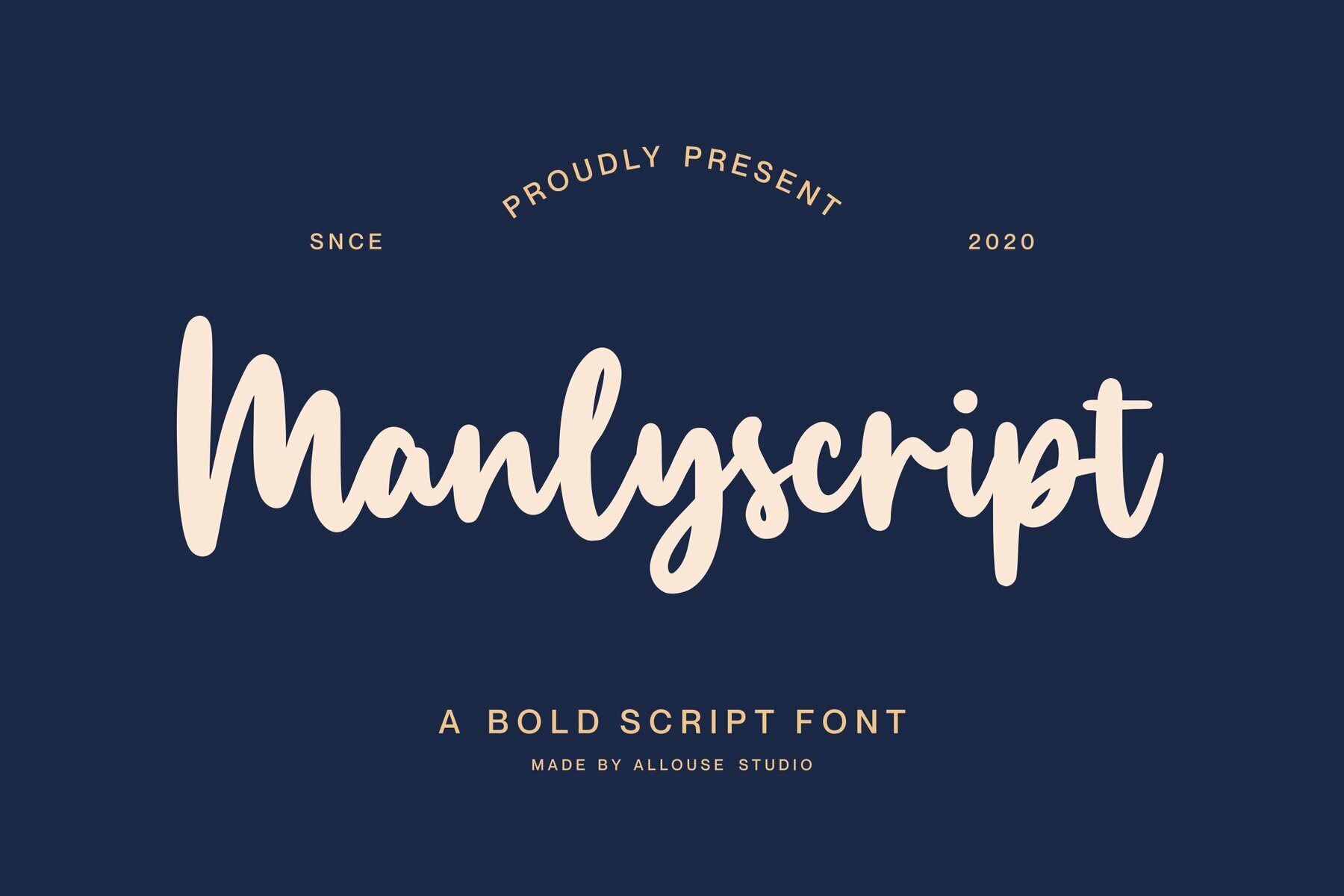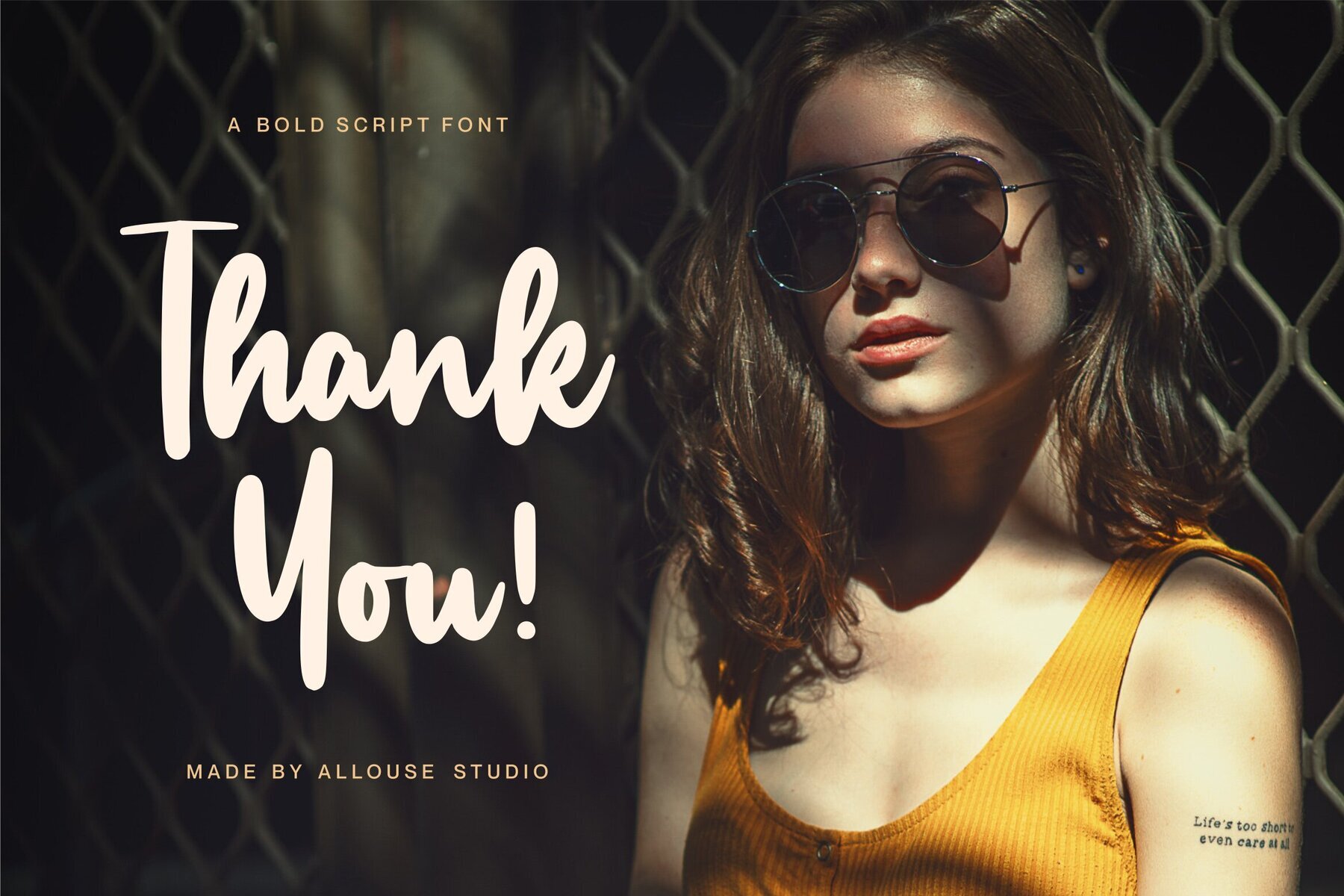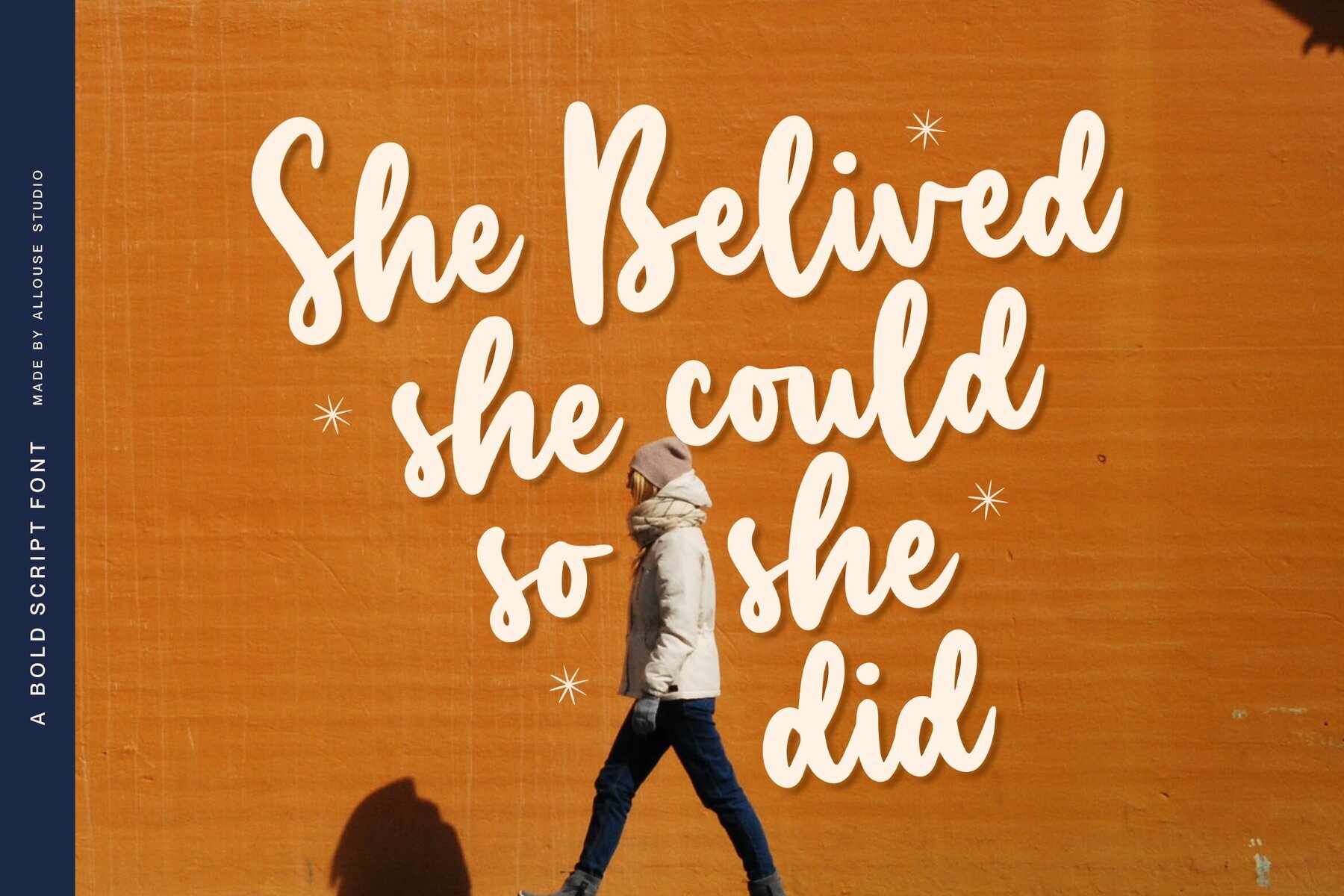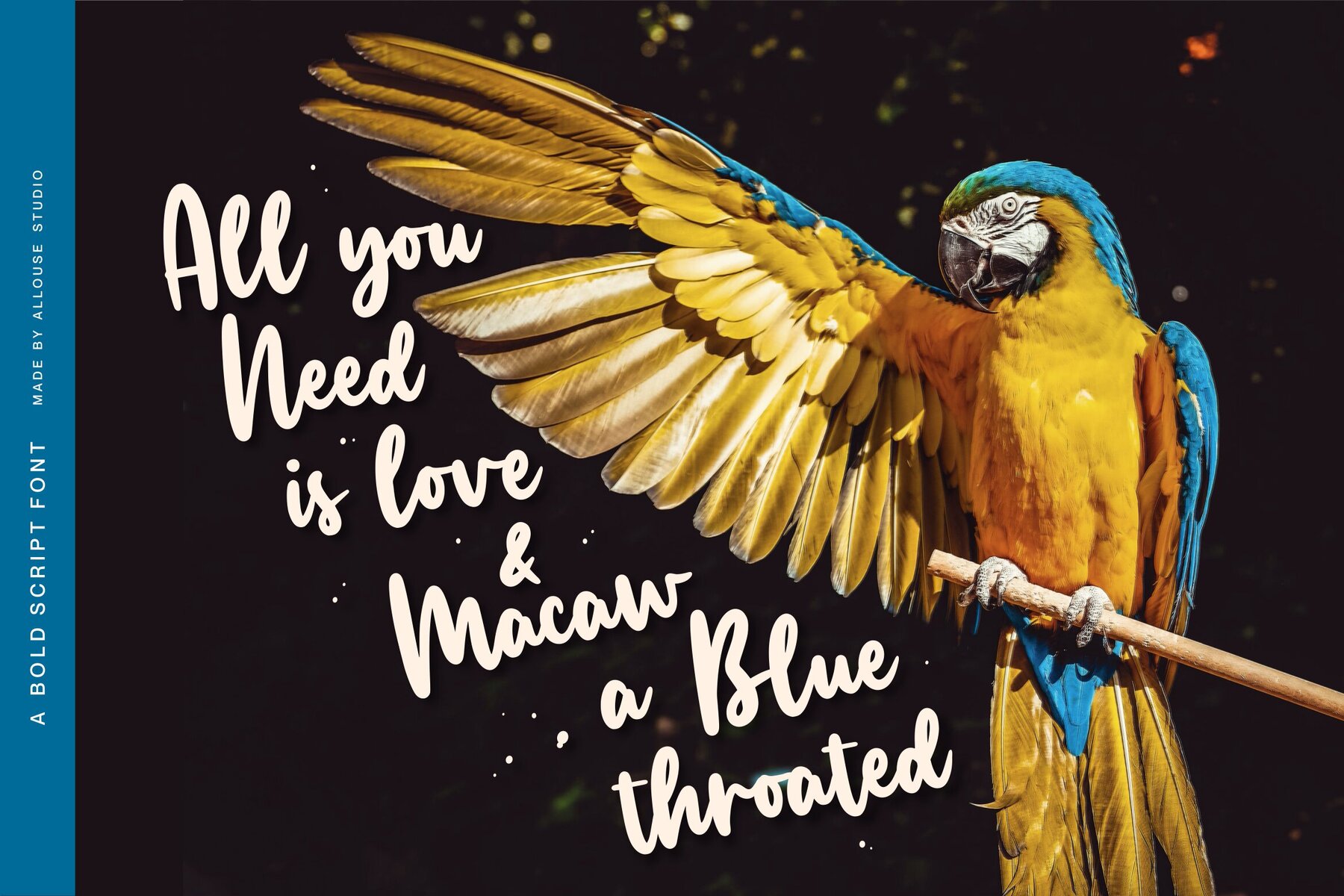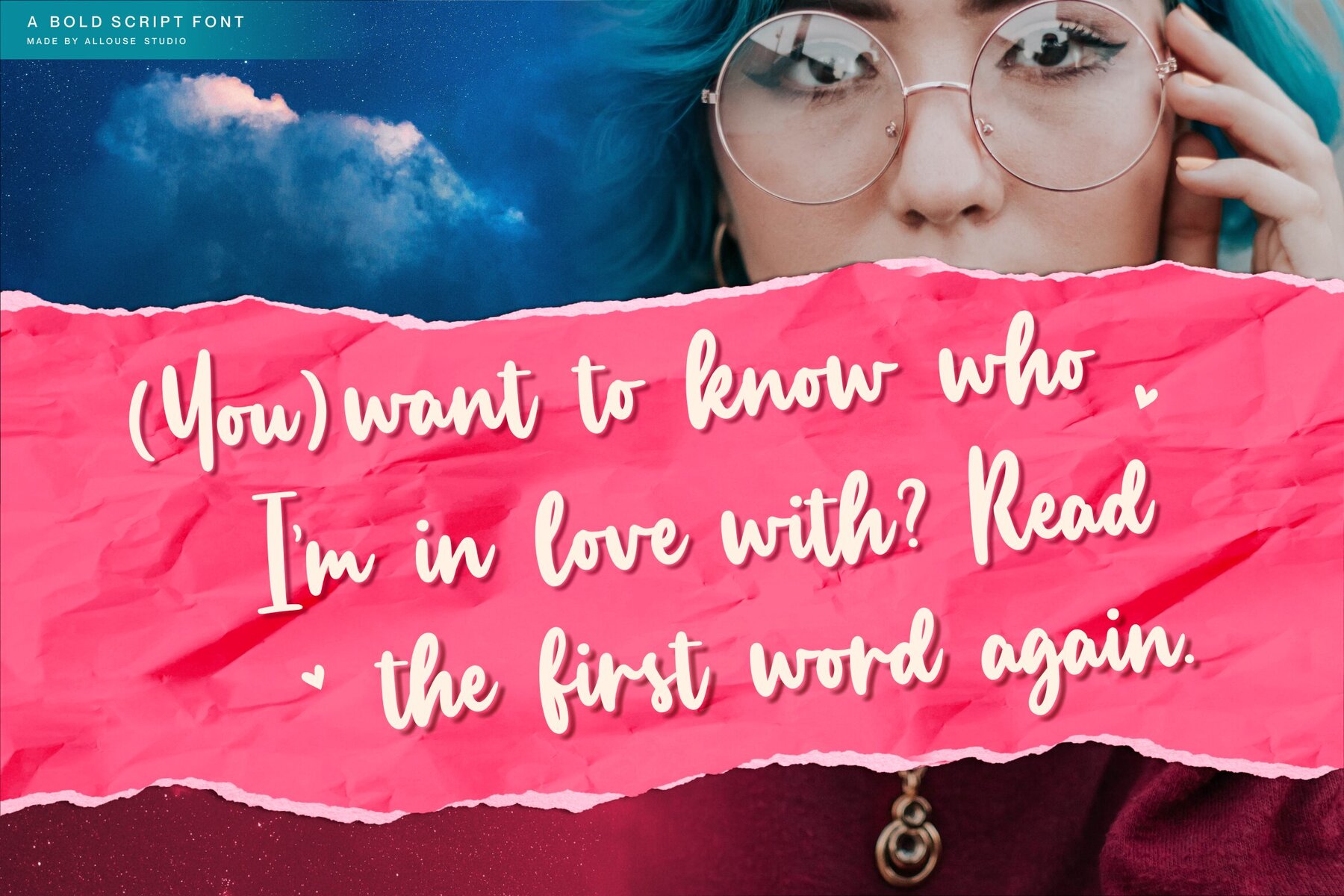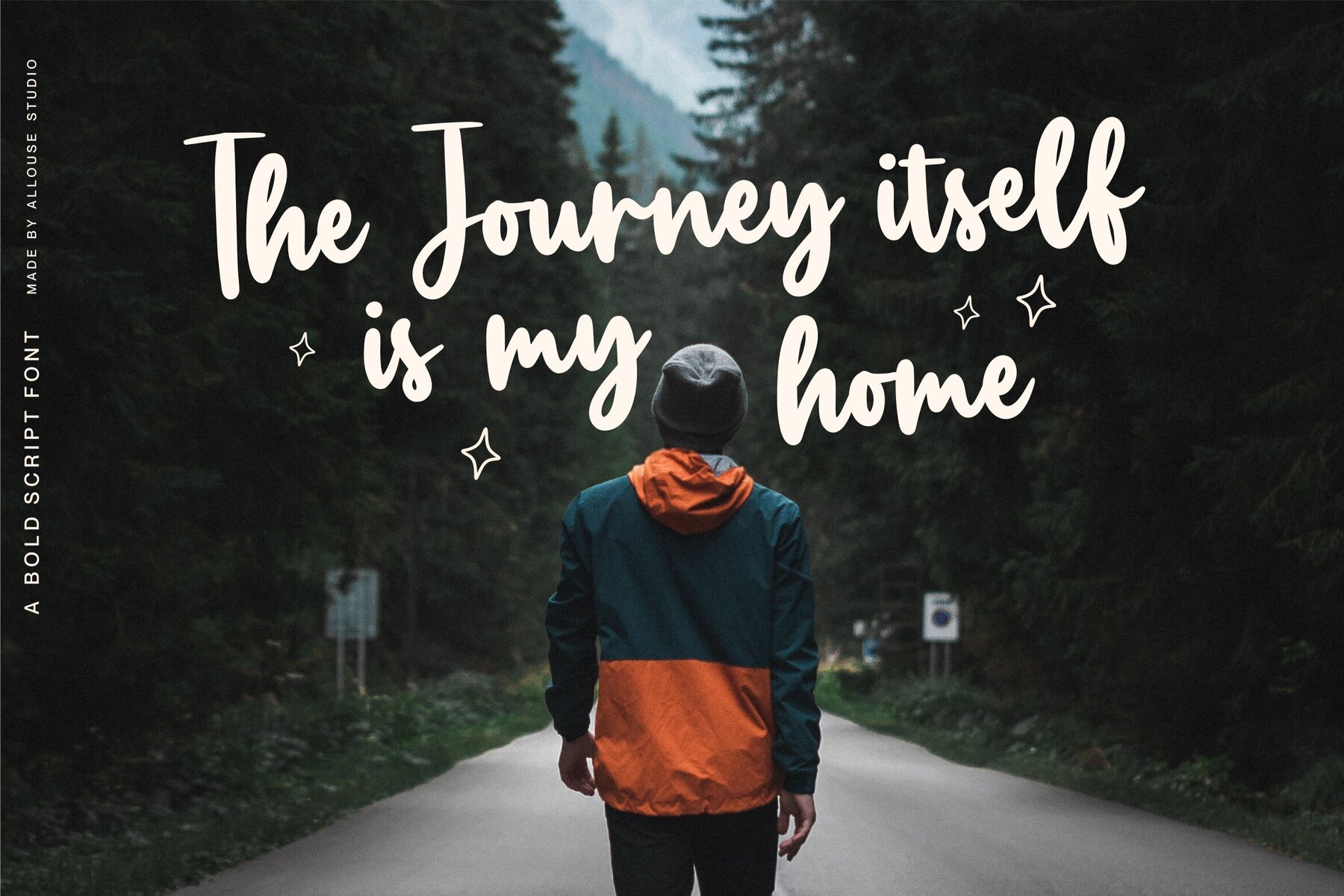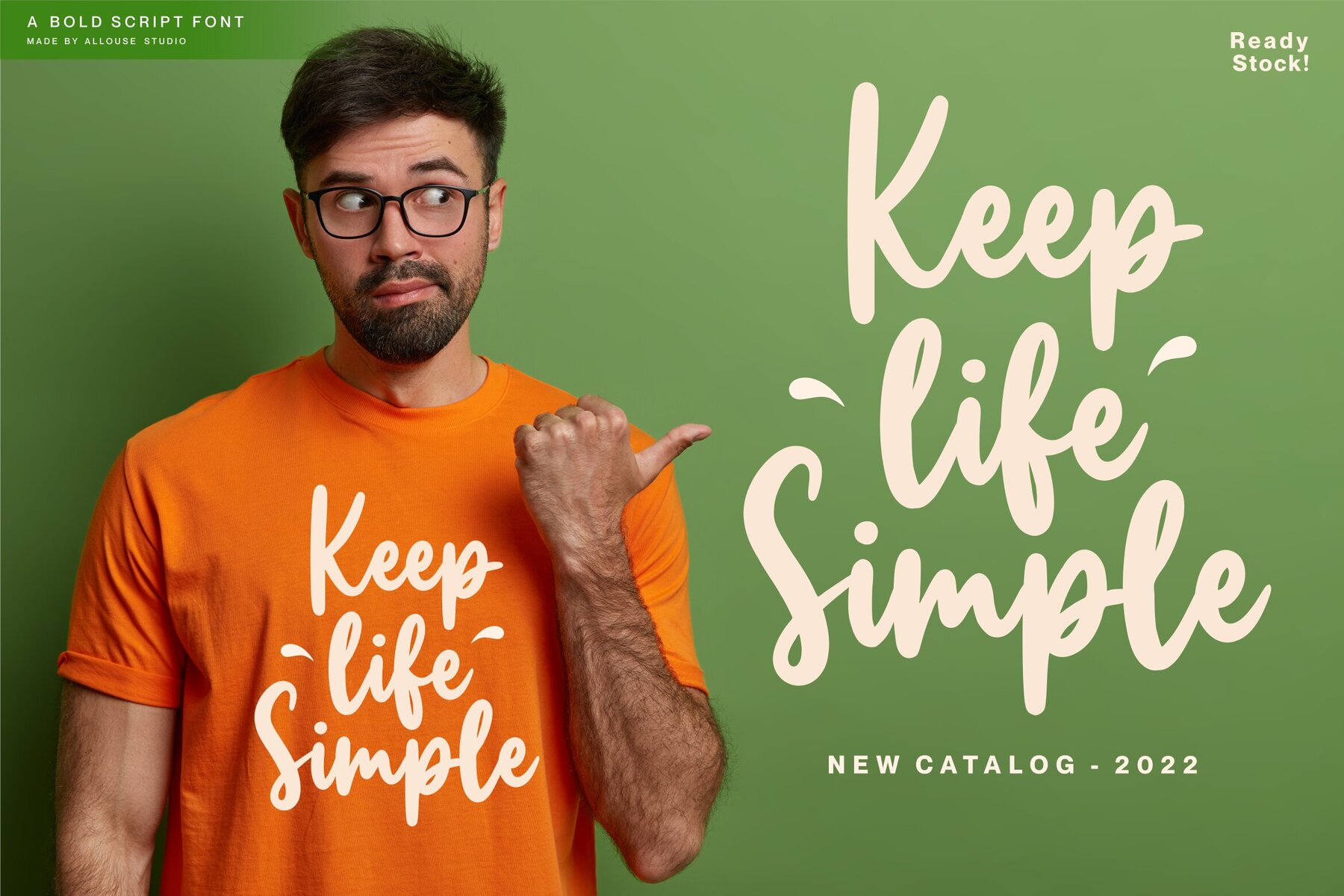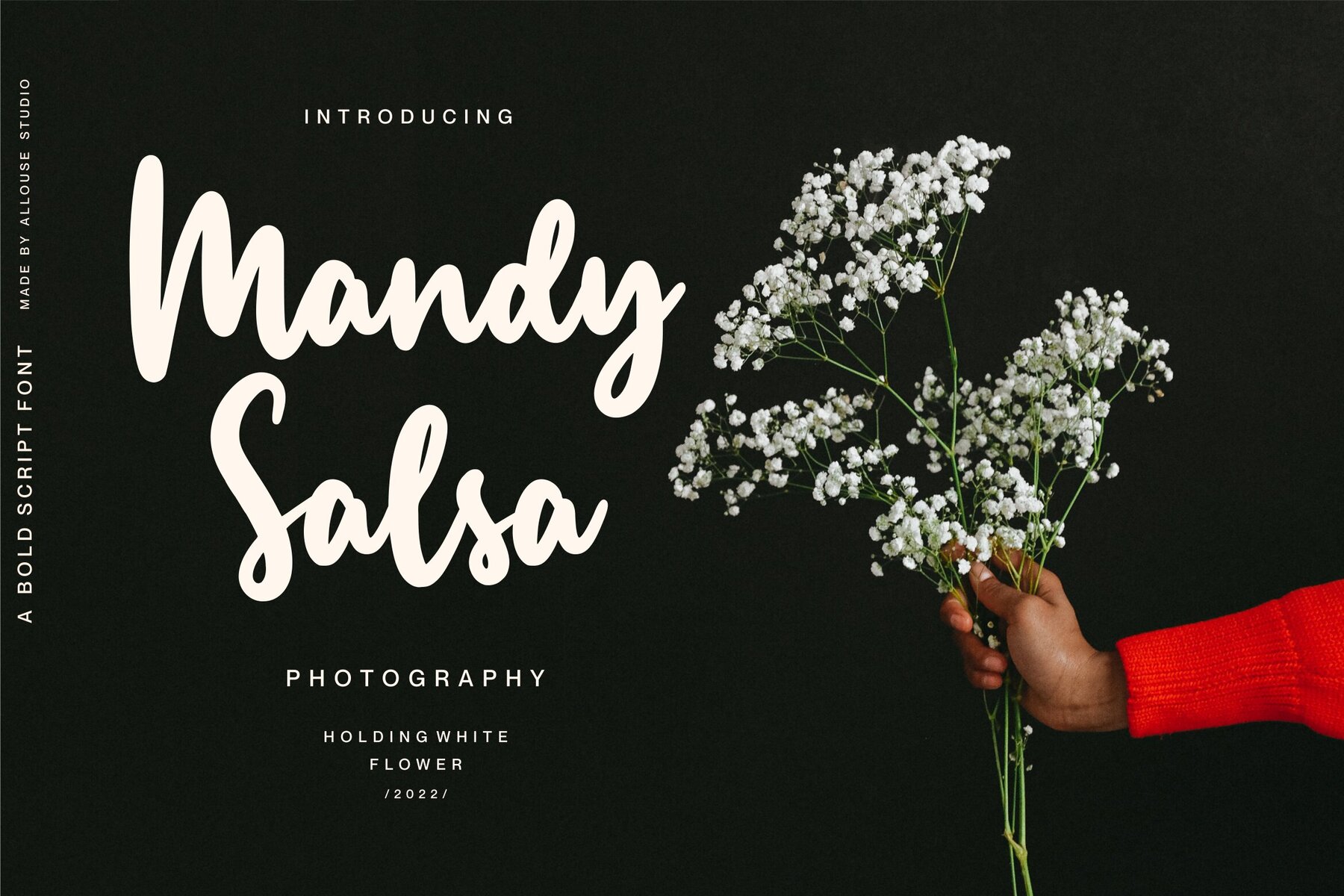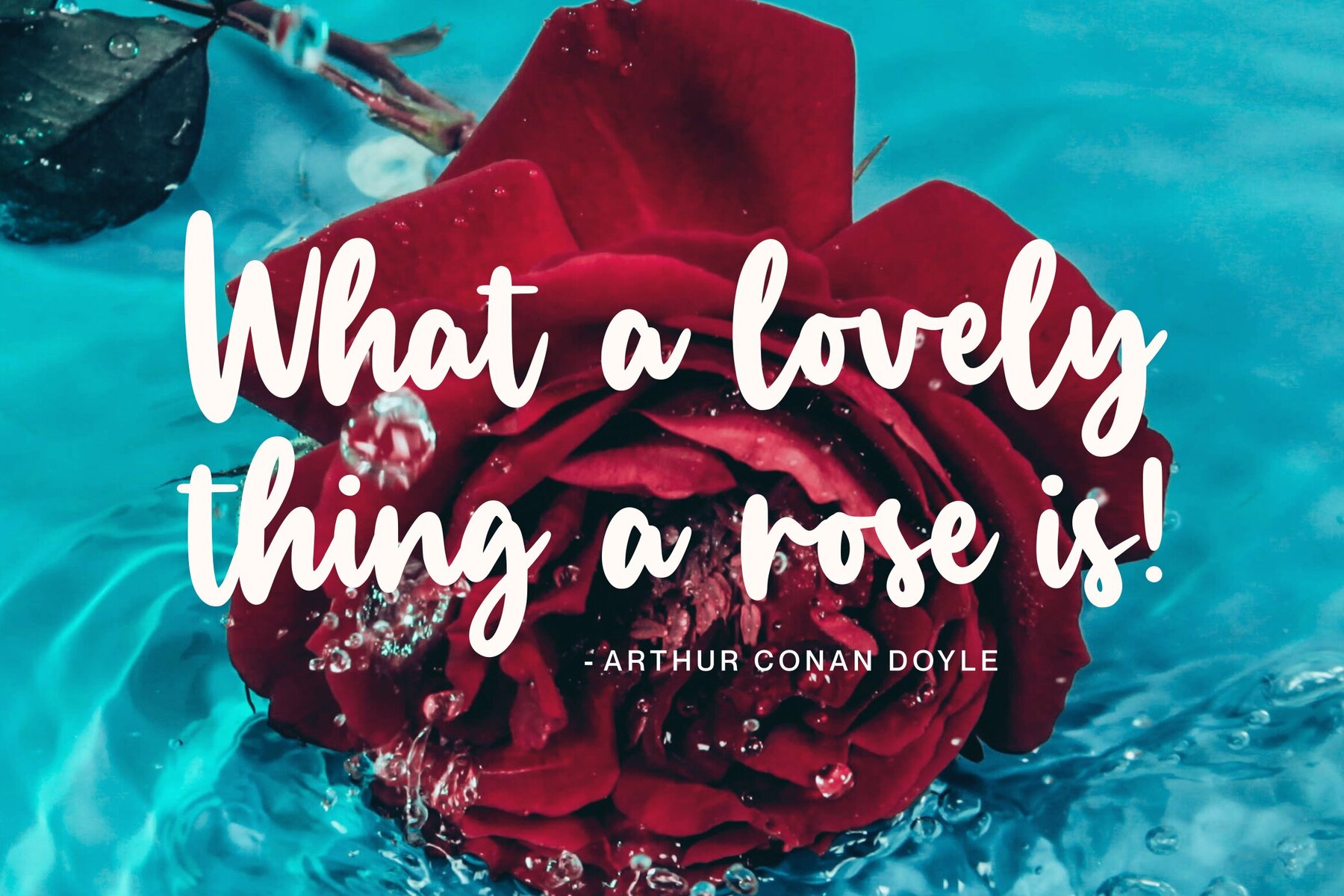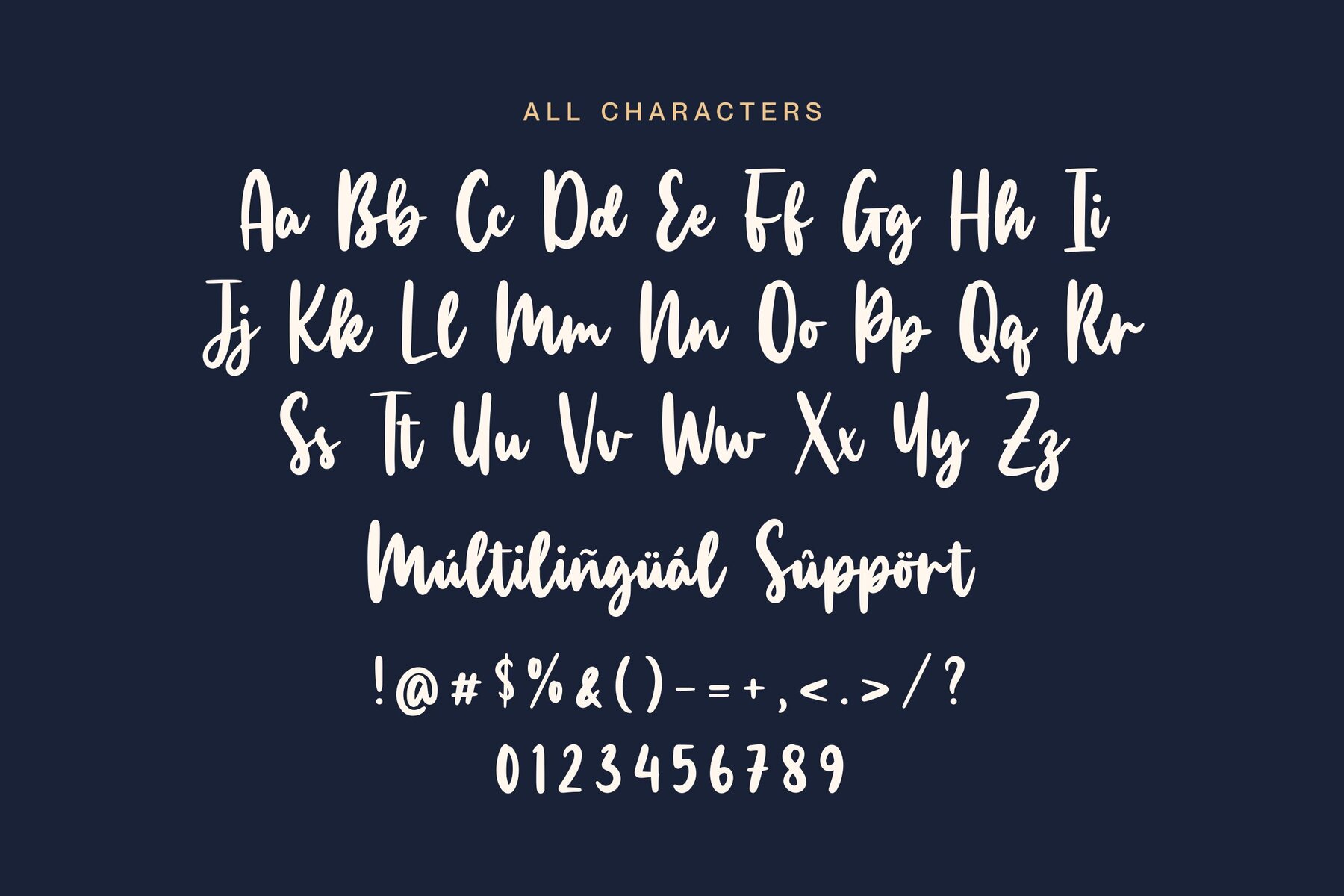
Manlyscript Font
Manlyscript
Manlyscript captures the essence of modern design with its elegant curves and sophisticated flair. This font is a dynamic choice for a range of applications, making it ideal for product packaging, branding projects, and editorial design. Its adaptability ensures that it fits seamlessly into the aesthetic demands of social media content and wedding invitations, or simply adds a stylish accent to any layout.Manlyscript: Versatile and Sophisticated Script
With Manlyscript, your design possibilities are expansive, aligning well with dynamic and classic styles.